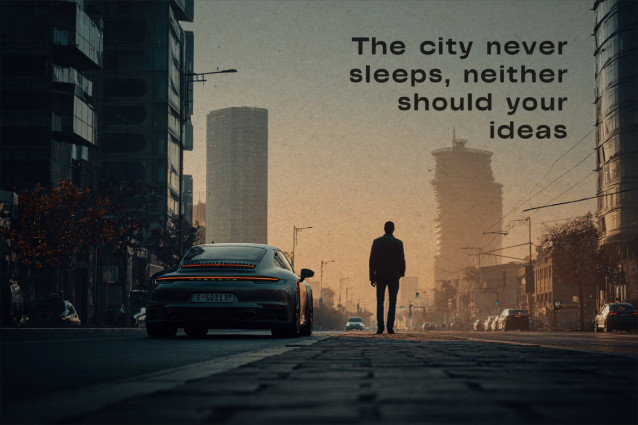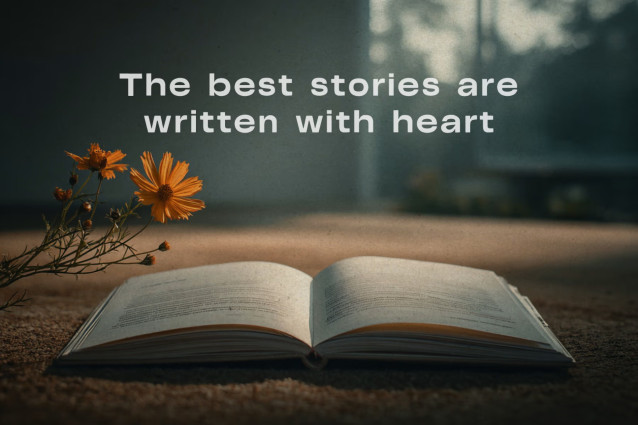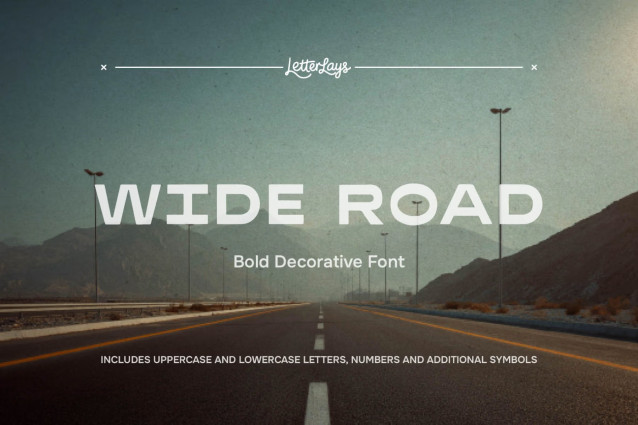
Wide Road Bold Decorative Font
✨ Wide Road is a wide bold display font with extended letterforms, road-sign confidence, and clean statement-title impact. It is ideal for posters, signage, travel branding, automotive graphics, streetwear designs, logo concepts, editorial titles, and bold packaging, as well as branding, packaging, posters, labels, social graphics, and creative display typography.
🎨 Use Wide Road when your design needs a distinctive title style, a memorable product name, or a custom typographic mood that feels aligned with the visual world of the project.
The font includes uppercase and lowercase letters, numbers, punctuation, and additional symbols shown in the previews. 💛